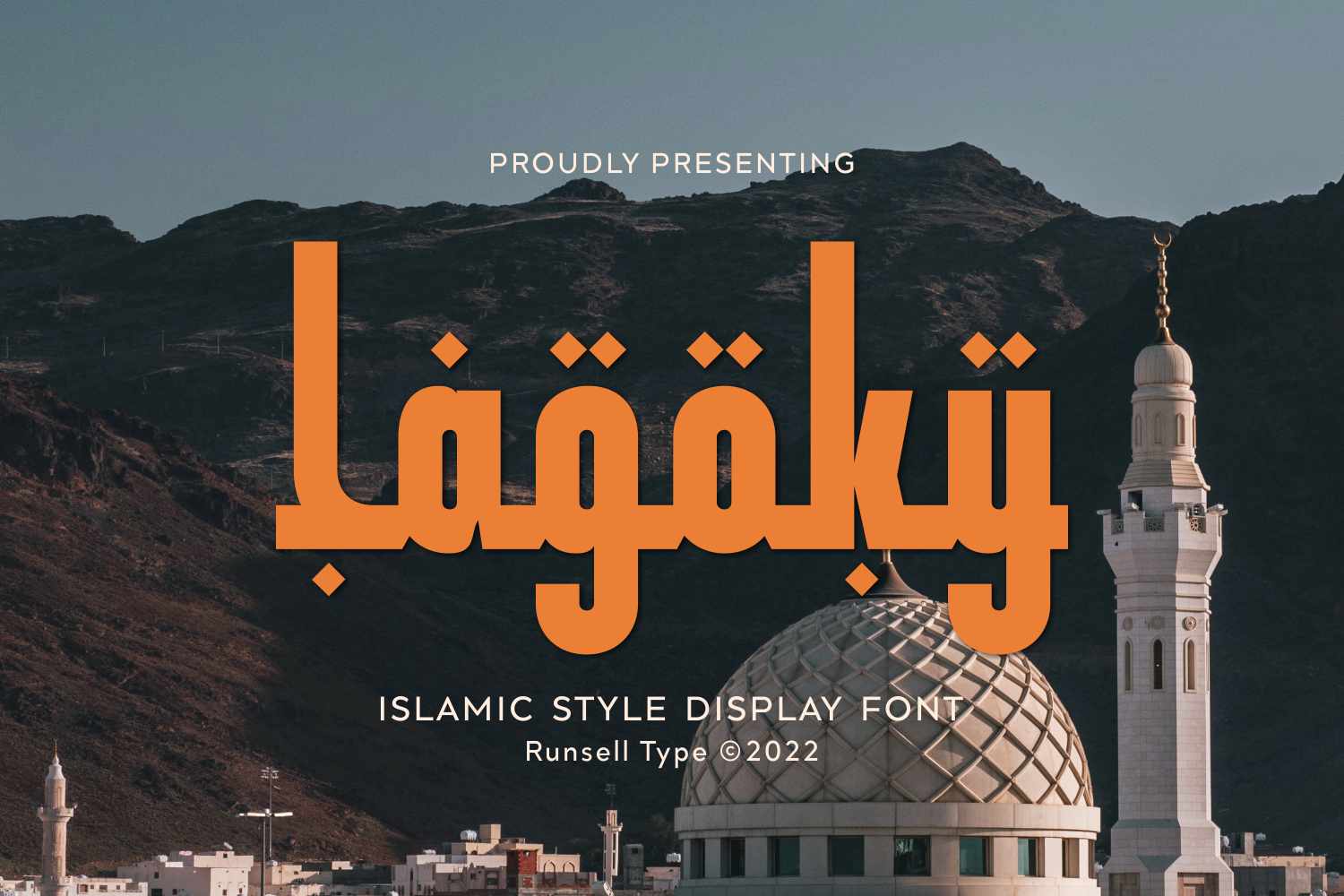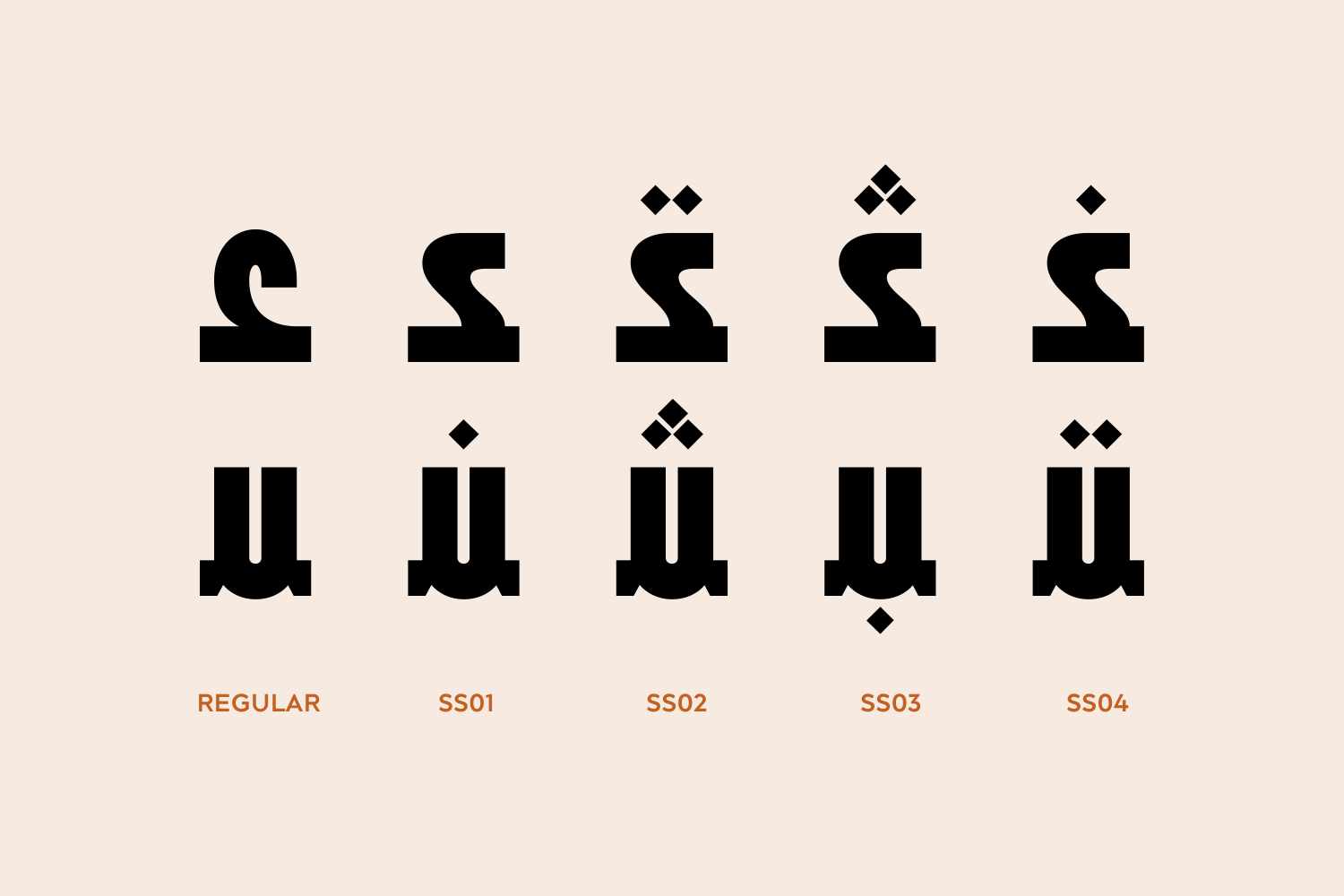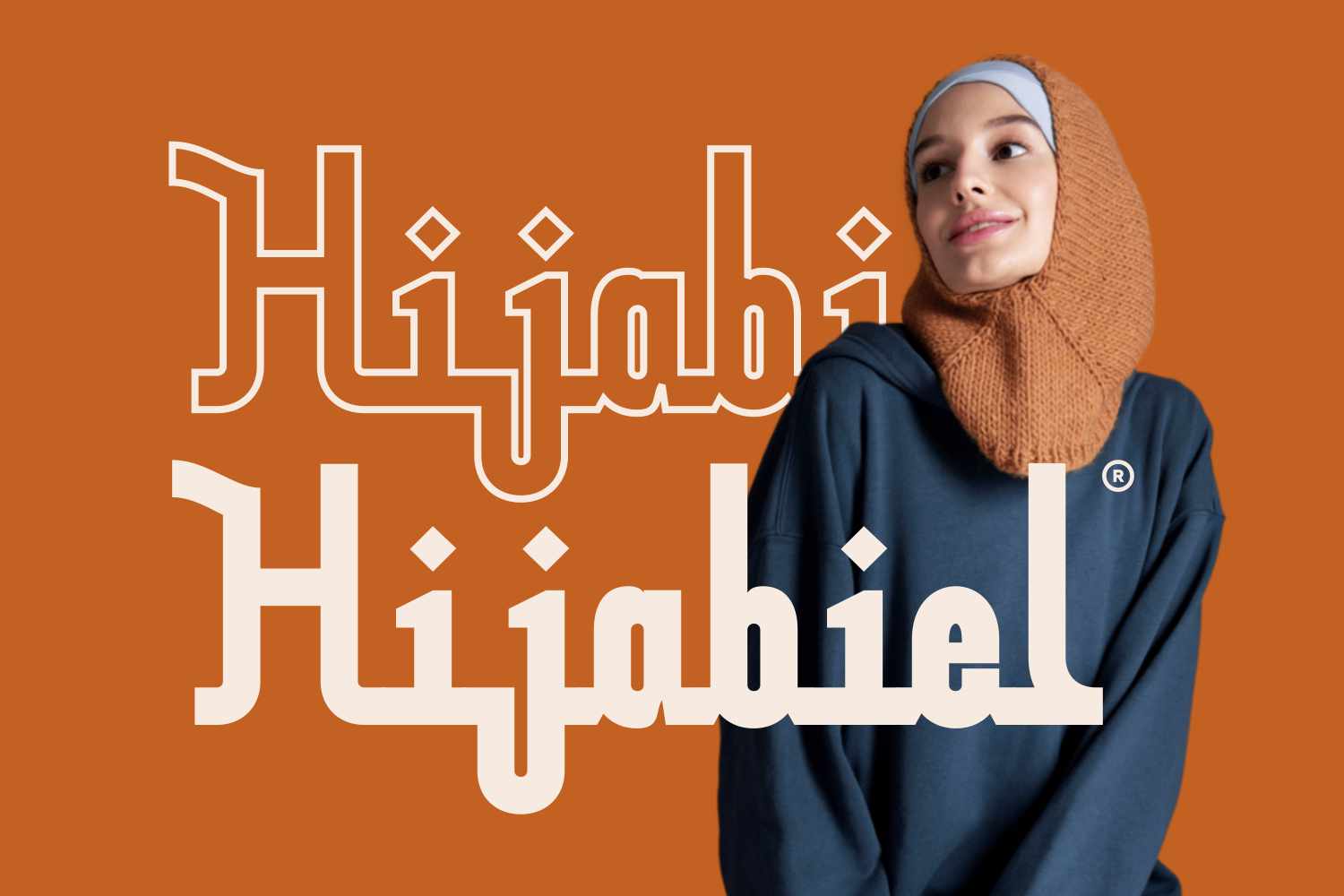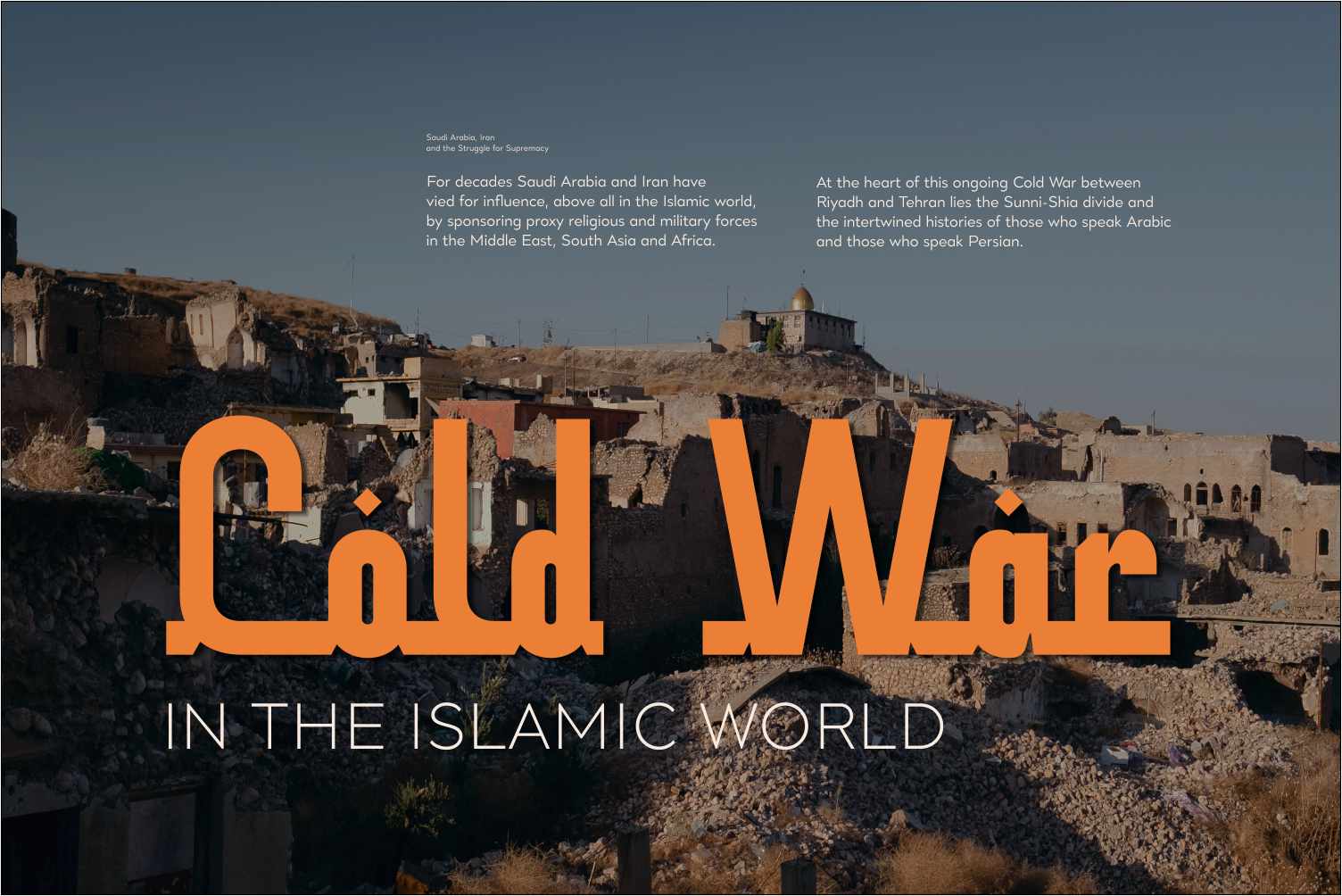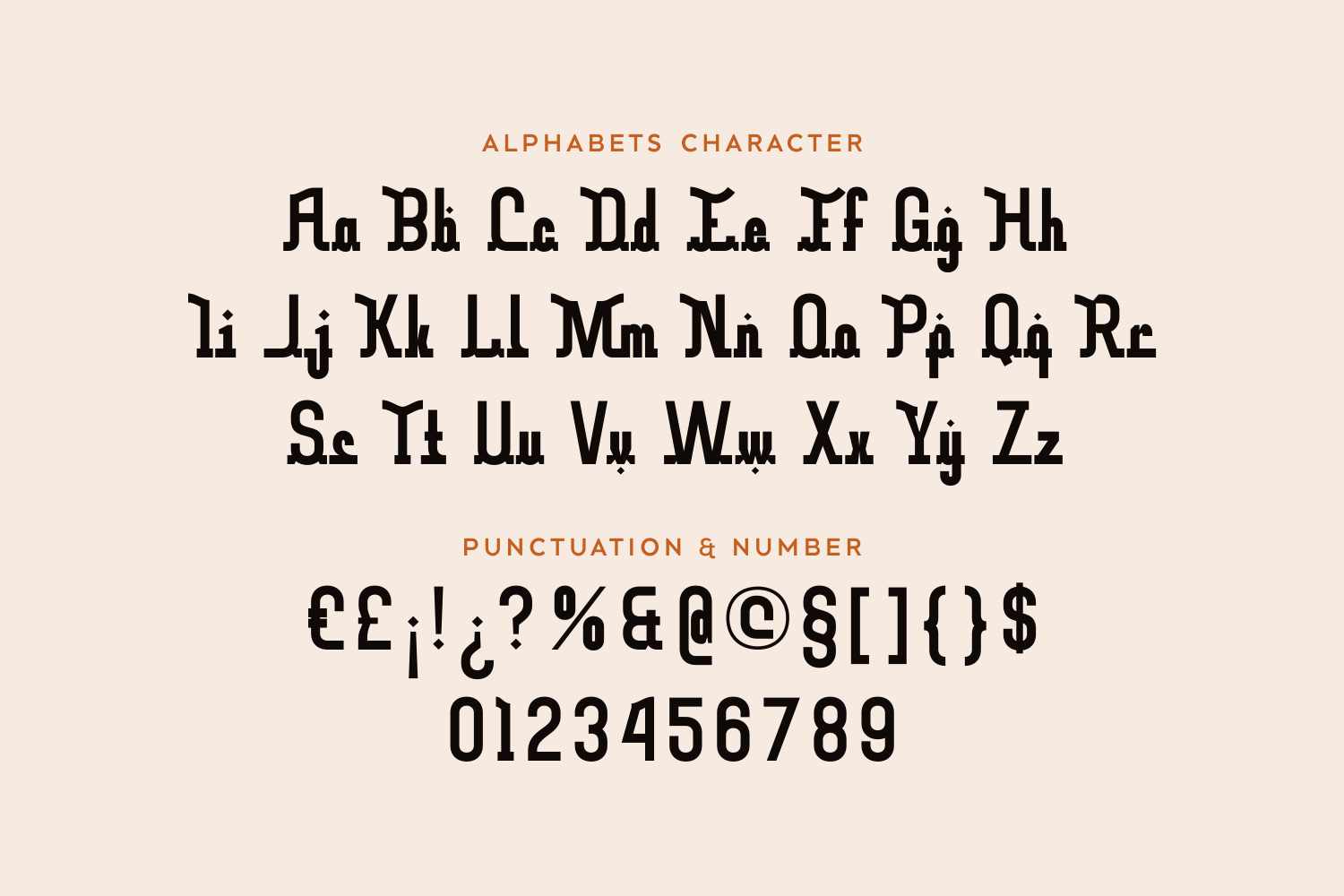
Lagoky is a bold Islamic-style display font that blends Middle Eastern aesthetics with modern geometric form. Its tall, blocky structure and squared-off terminals create a commanding presence, ideal for impactful headlines, editorial layouts, or religious branding. The distinctive Arabic-inspired accents give the typeface a cultural depth that is both respectful and powerful.
Designed with stylistic sets and alternates, Lagoky allows for versatile usage while preserving its strong architectural identity. It works well for apparel branding, educational posters, Islamic event promotions, or any visual that seeks to honor Arabic script forms with a contemporary flair. Lagoky is not just a font, it’s a visual statement rooted in faith and modernity.
Lagoky